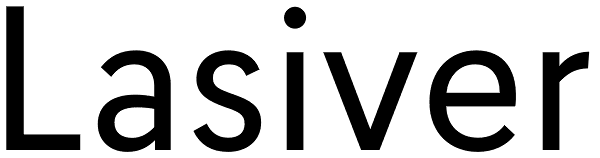
Lasiver
Lasiver is a simple, cool & dynamic type family. The Lasiver family includes 7 weights, from Hairline to Black, with their corresponding italics. Each font includes OpenType Features such as Stylistic Alternates, Proportional Figure, Tabular...